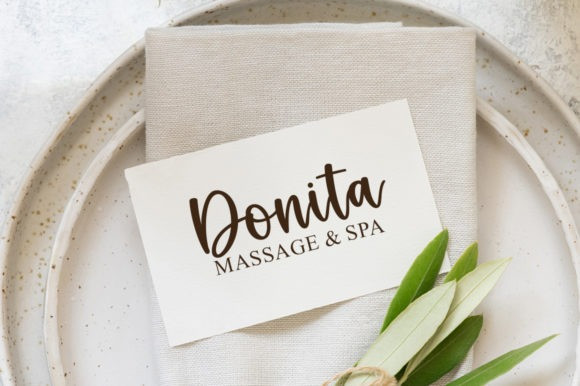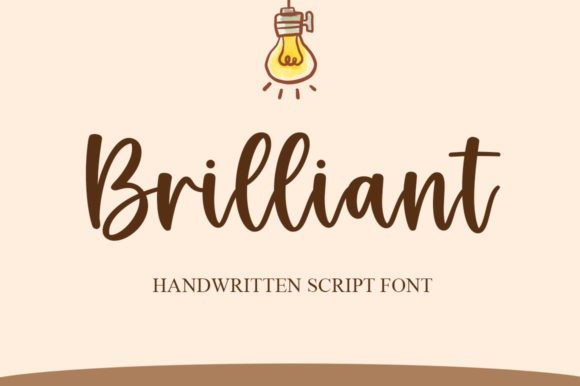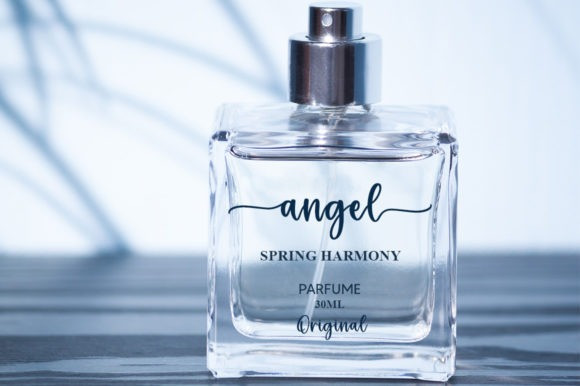
Brilliant Script Typeface
Brilliant Script Typeface, is a magical handwritten font. It looks ravishing on invitations, thank you cards, quotes, greeting cards, logos, business cards and every other design which needs a customized touch. This font is PUA encoded which means you can access all of the glyphs and swashes with ease!